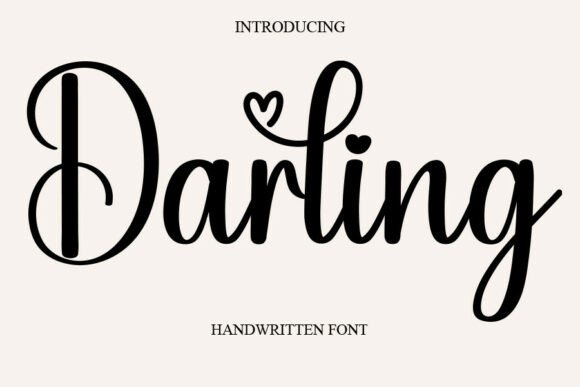
The Perfect Brushstroke: Unveiling the Darling Font
There’s something magical about sitting at a desk, surrounded by scattered paper, pencils, and a warm cup of coffee, as you bring a design to life. The gentle scratch of the pen on paper, the dance of words, and the evolution of an idea into a masterpiece – it’s moments like these that make design so enchanting. And what if we told you that there’s a way to capture that handwritten charm in your digital creations?
Enter the Darling Font, a stunning and elegant handwritten font that adds a touch of whimsy to any design. Whether it’s a wedding invitation, a heartfelt thank you card, or a bold logo, the Darling Font is the perfect tool for designers who crave that special, handwritten look. With its PUA encoding, accessing all the glyphs and alternates is a breeze, making it an invaluable addition to any design toolkit.
Darling Font Key Features
- Unique Characteristics: Elegant, cursive script with subtle flair and connection between letters
Darling Font Review
I recently had the chance to work with the Darling Font, and I must say, it’s a lovely addition to any design project ✨. The font’s elegant and whimsical feel makes it perfect for creating a romantic and feminine atmosphere. The subtle flair on the letters adds a touch of sophistication, making it ideal for wedding invitations, greeting cards, and other special occasions.
- Extensive character set, including uppercase, lowercase, numbers, and punctuation
- High-resolution glyphs, suitable for both screen and print use
- Beautiful, intricate details on each letter
While the Darling Font excels in many areas, there are some limitations to consider ⚠️. For one, it may not be the best choice for text-heavy projects, as the font’s intricate details can make reading difficult. Additionally, the font’s high level of customization can make it challenging to achieve consistent results across different platforms and devices.
Overall, I think the Darling Font is a great choice for designers looking to add a touch of elegance and whimsy to their projects. With its beautiful details and extensive character set, it’s sure to impress. However, it’s essential to consider its limitations and use it judiciously in the right context.
Darling Font is ideal for:
- Brand logos and typography
- Book covers and posters